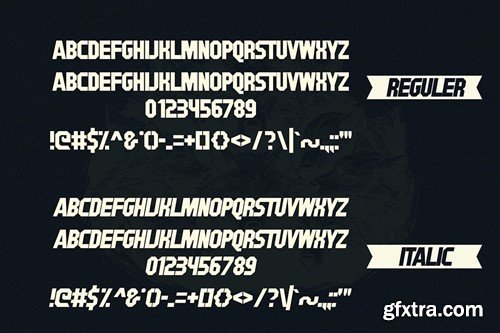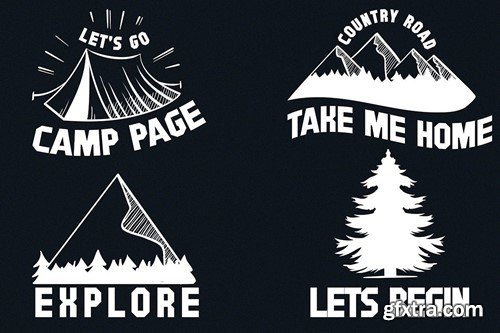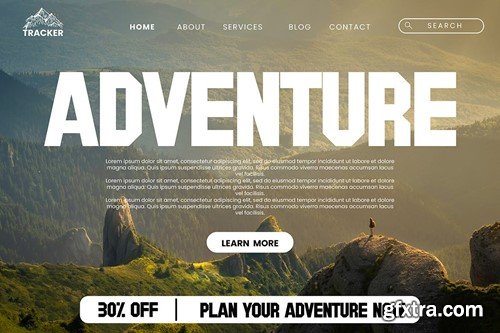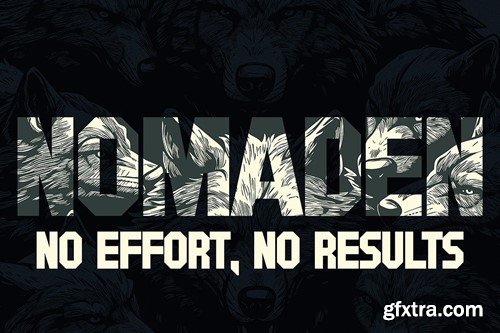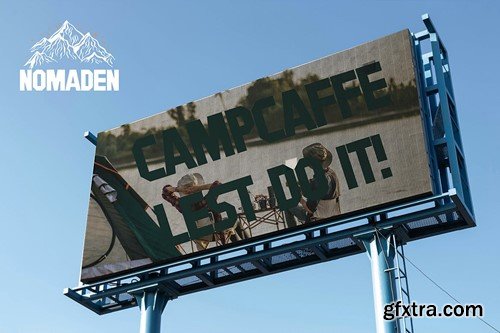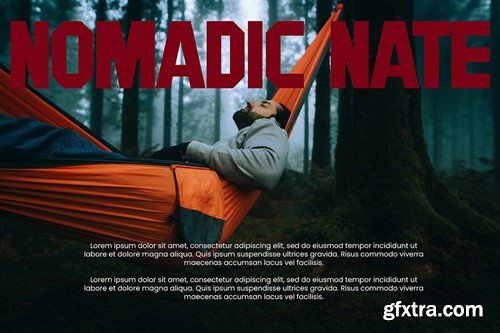
Nomaden - Adventure Display Font
Introducing Nomaden, a simple and adventure display font. So perfect for you who needs a typeface for logo designs, magazine, social media, brochure, and many more.
Features
• Uppercase
• Punctuation
• Numerals
• Multilingual Support